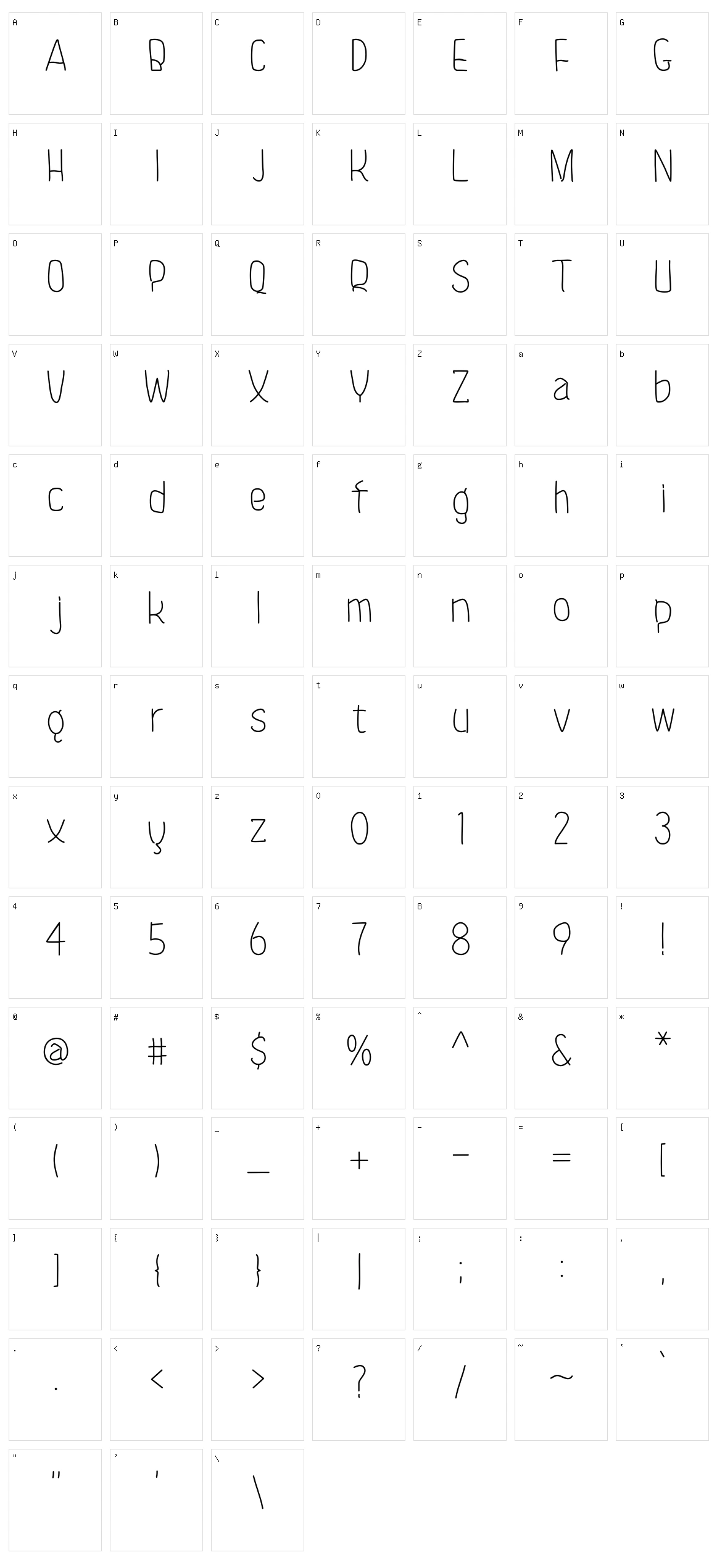
The free font Kinoko is carefully designed by Motoki Higa, showcasing a thoughtful balance of creativity and usability and falls under the Script font style. When you download the ZIP file, it contains only 37.8 KB of font files, making it lightweight and quick to download. Please review the license details below to understand permitted usage and distribution rights. If license information is not available, we recommend using this font for personal projects only or contacting the author directly for commercial usage permissions.